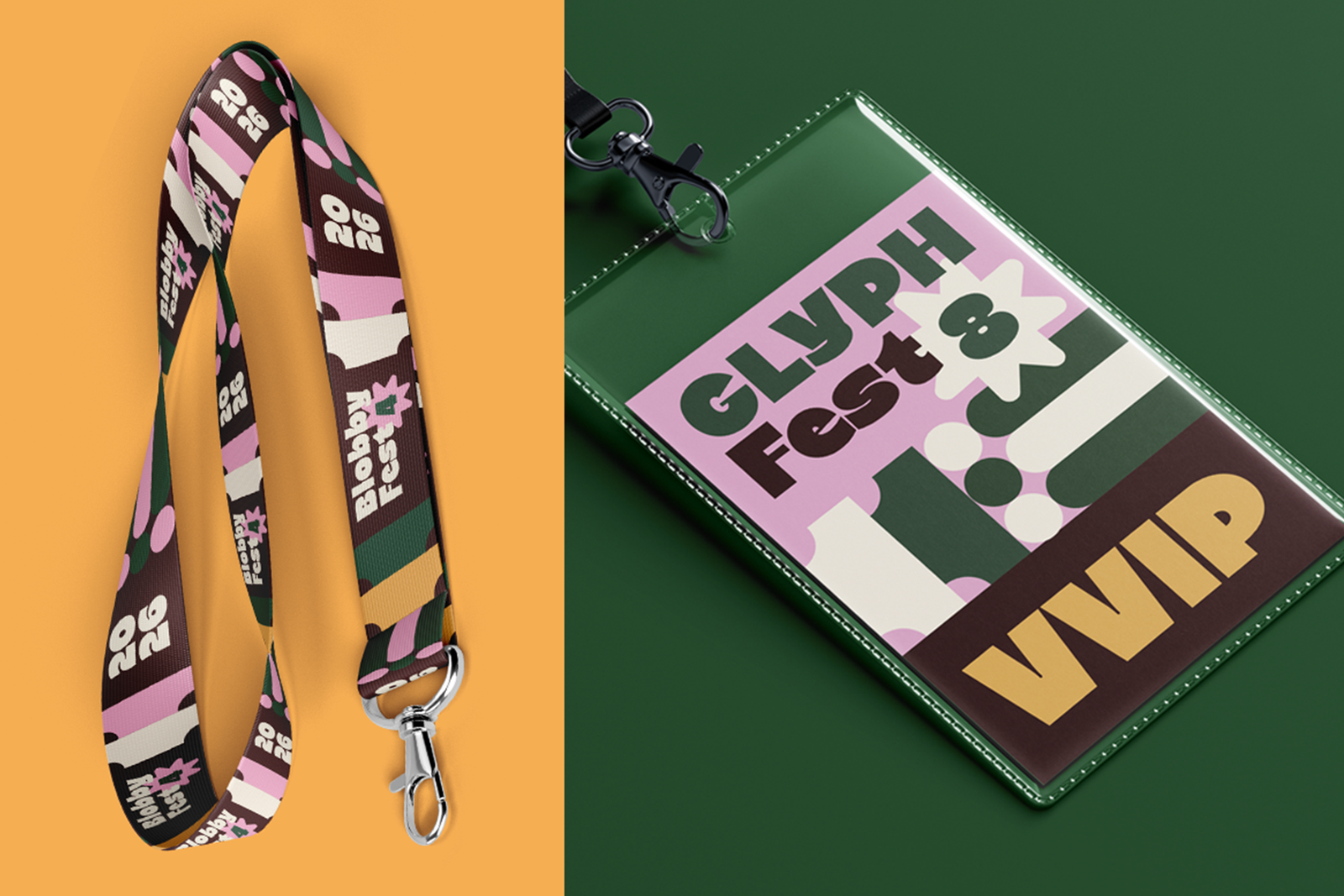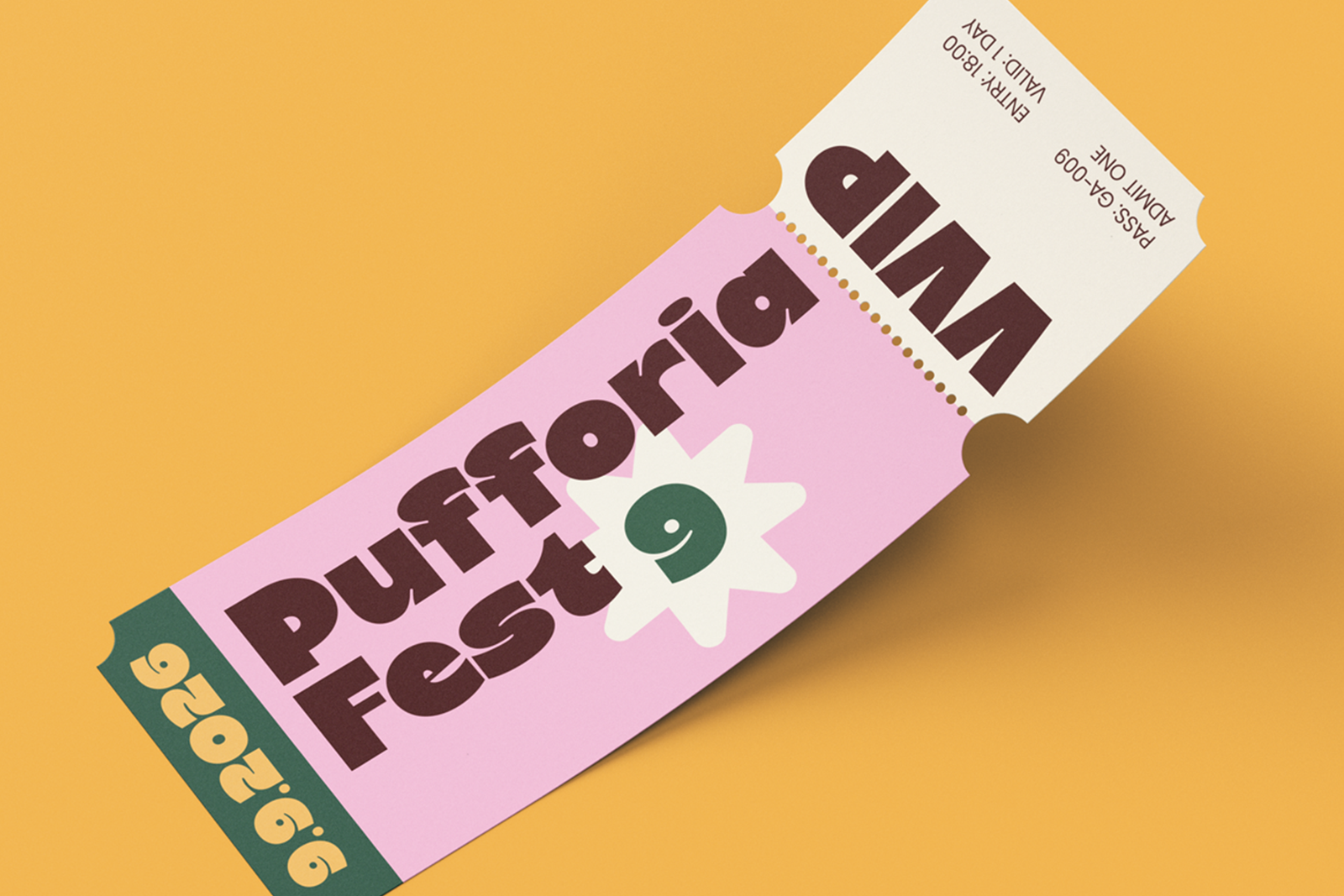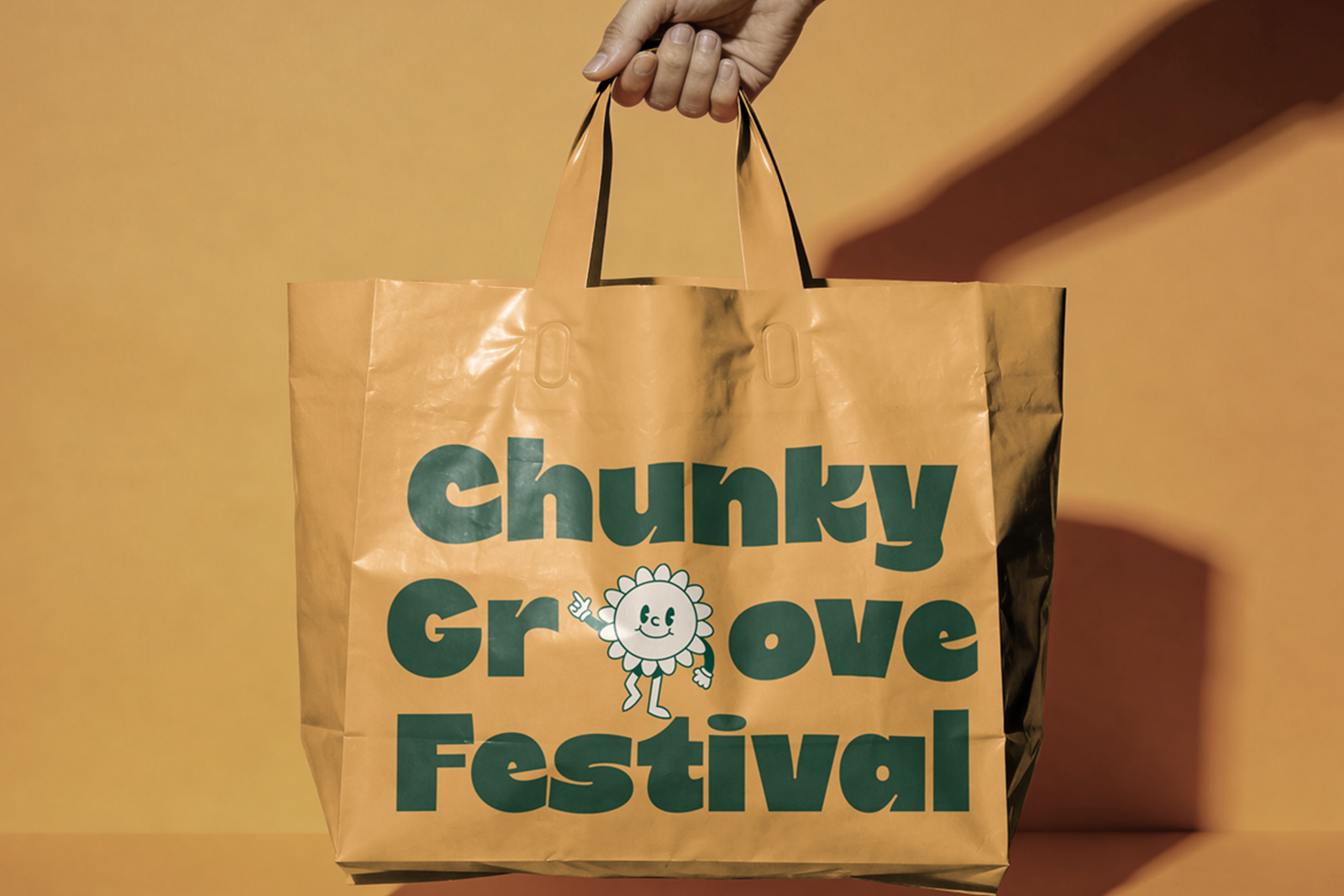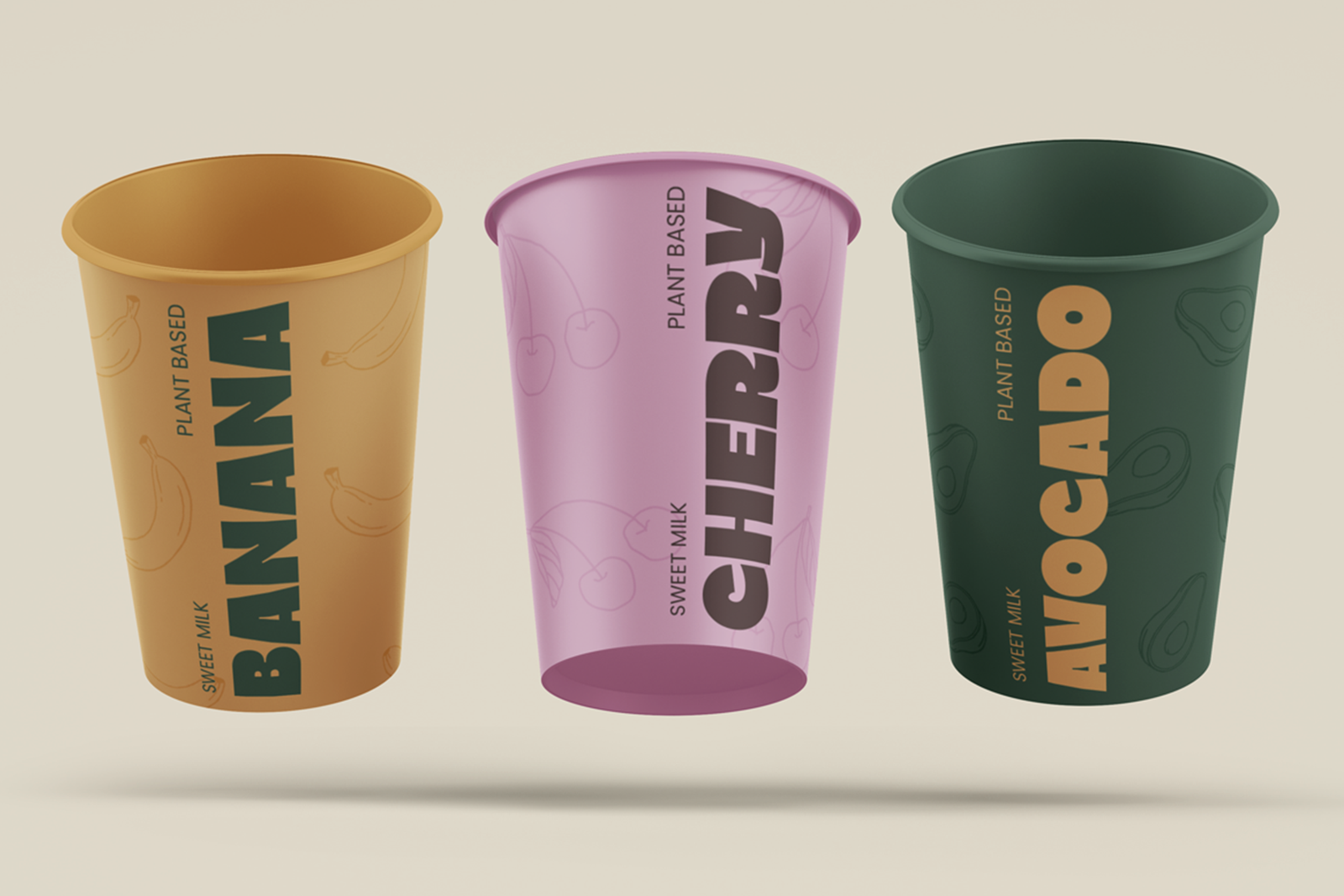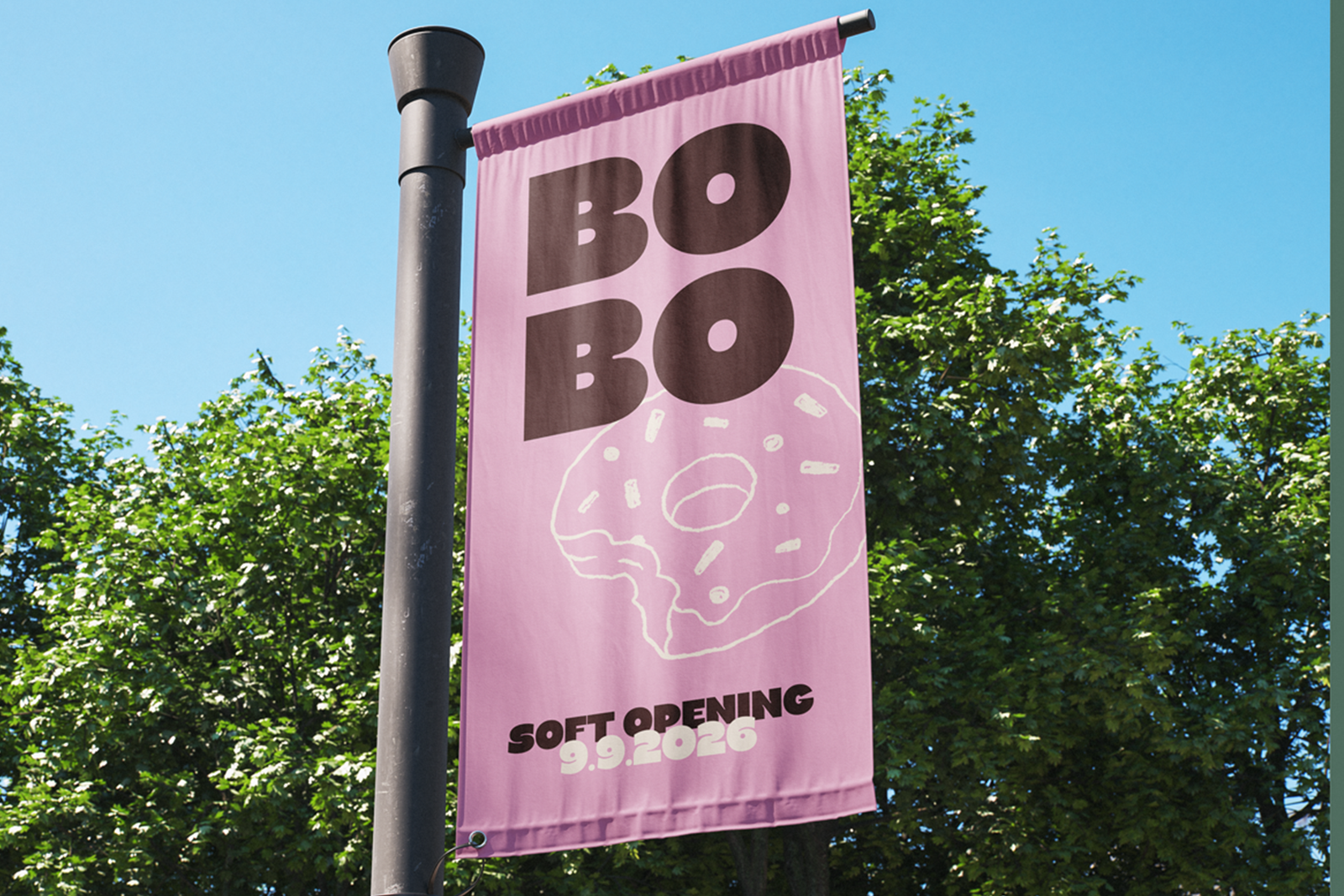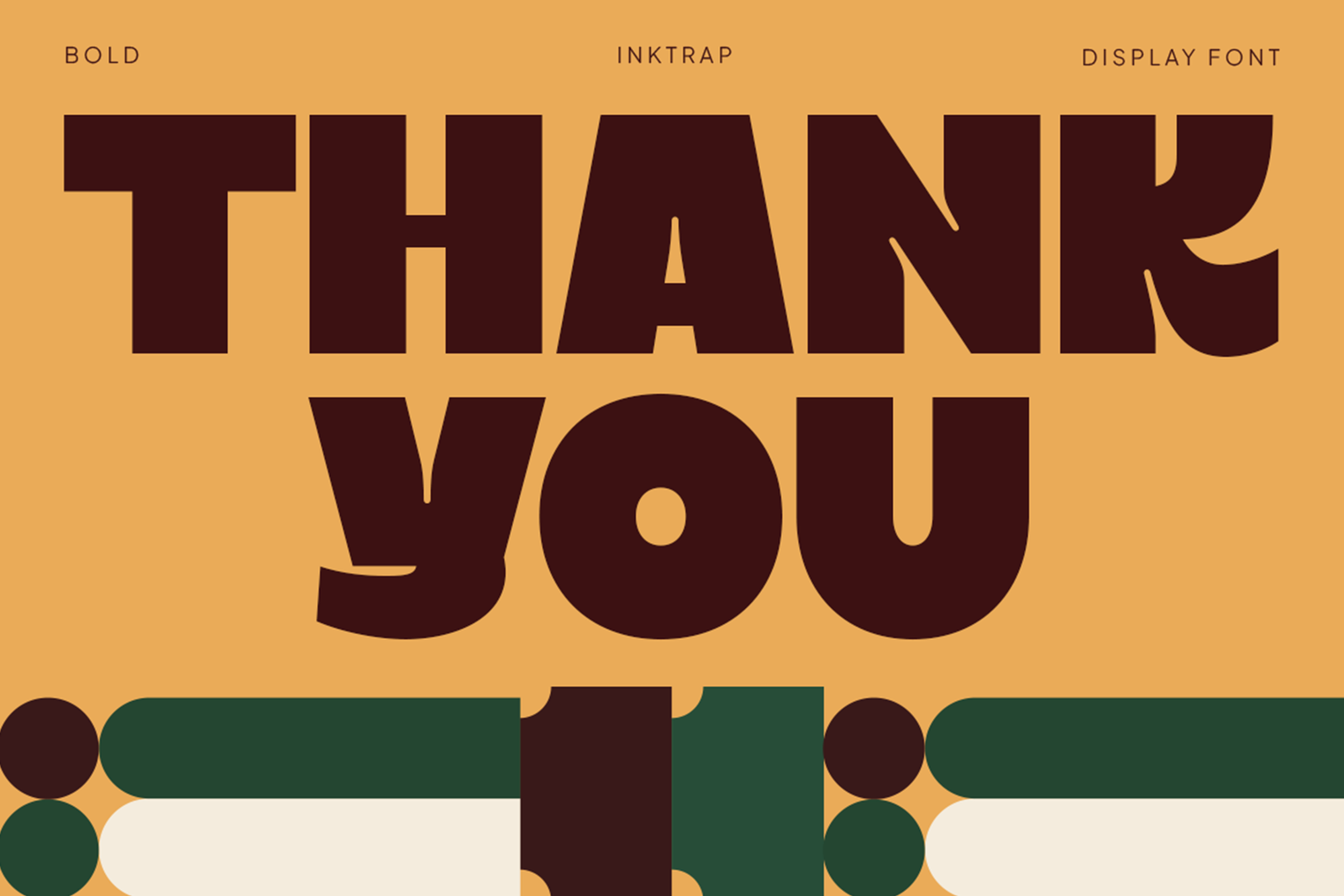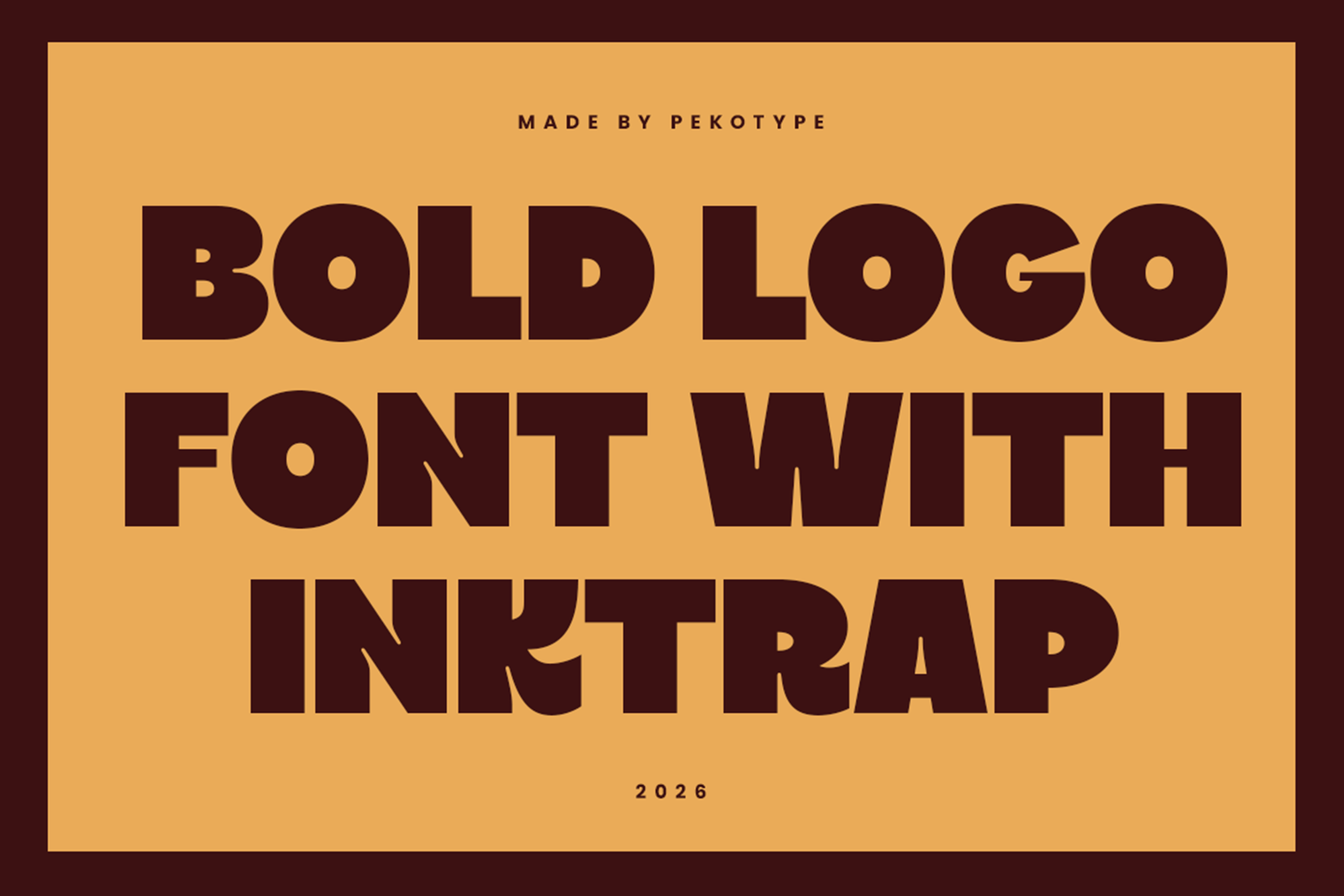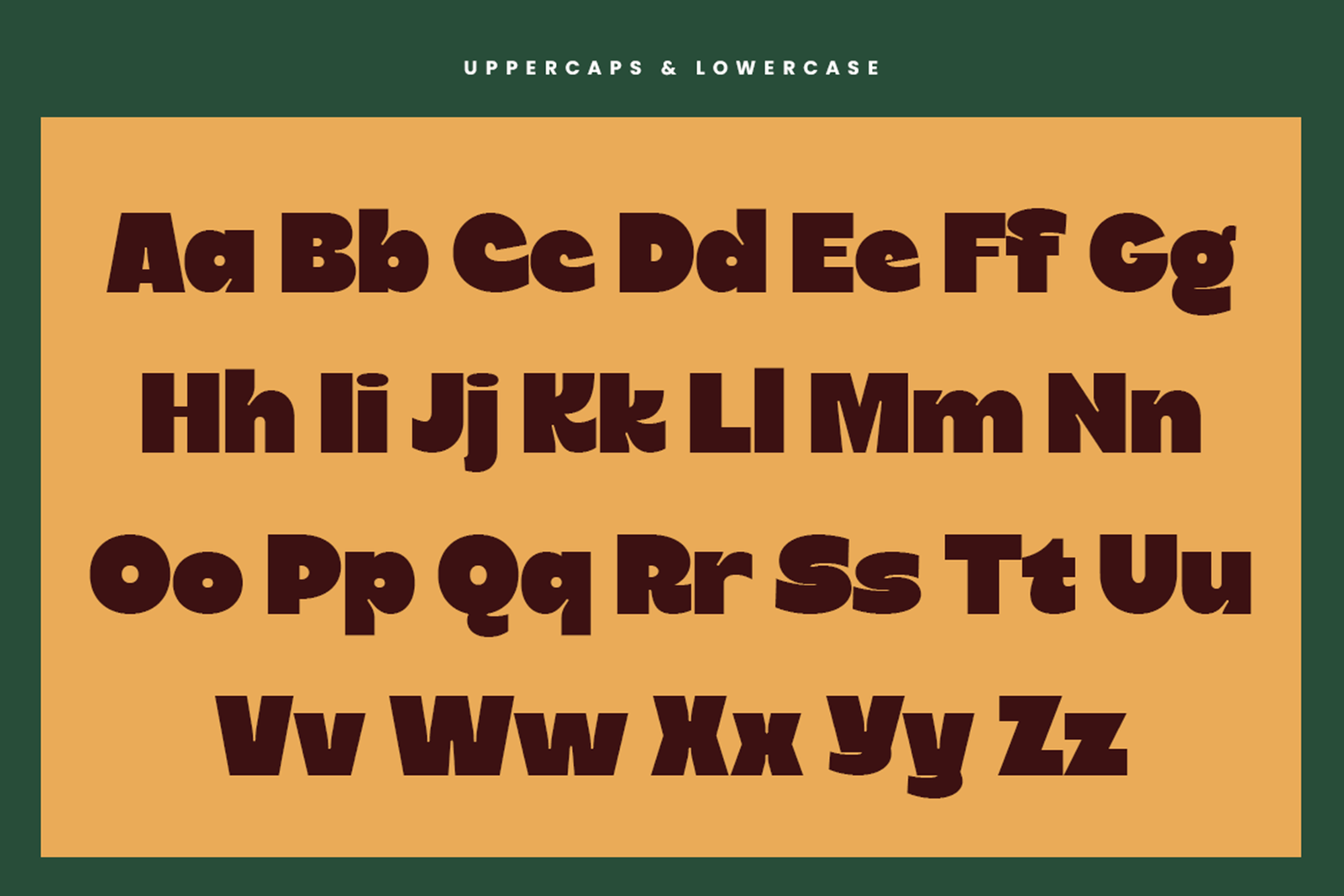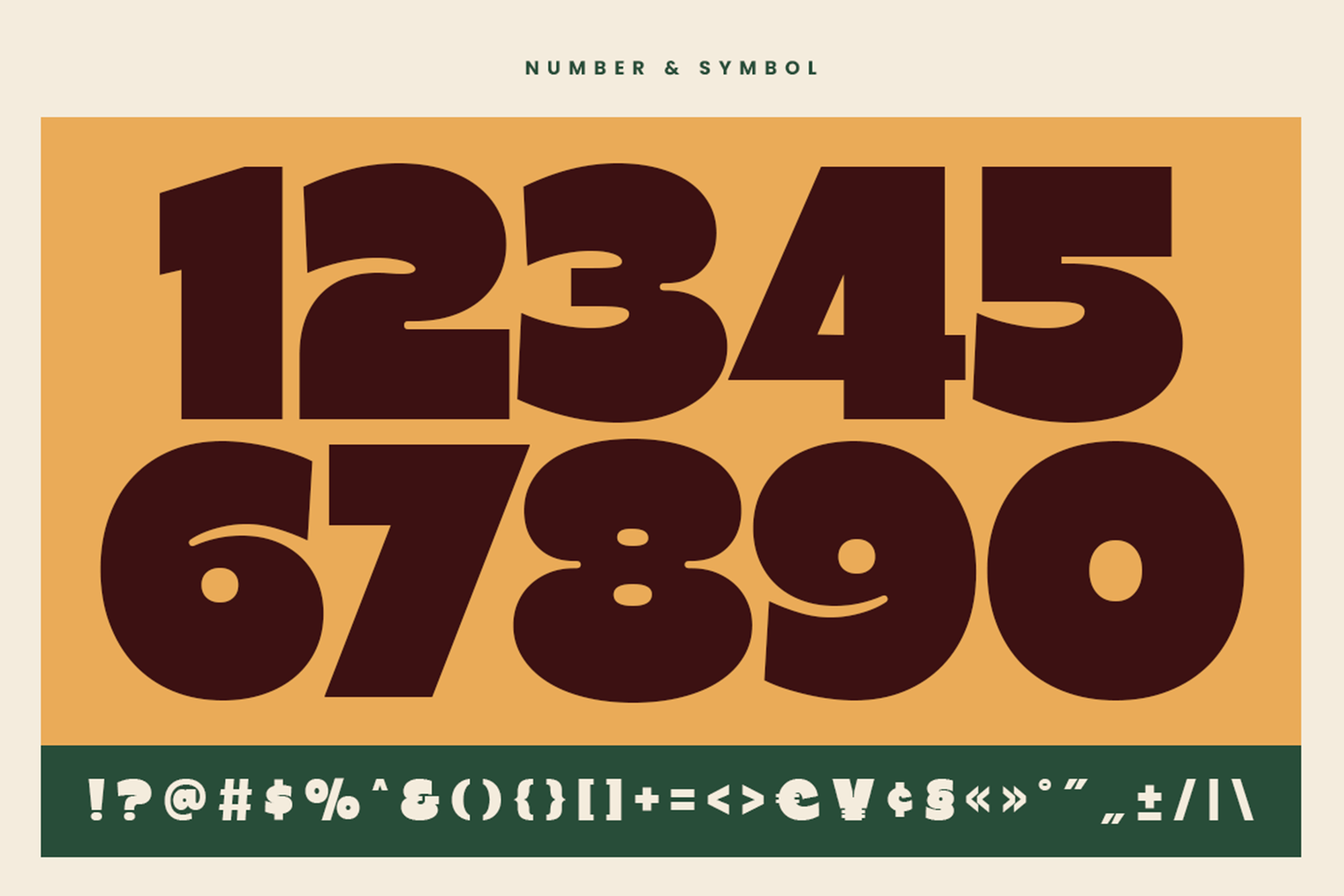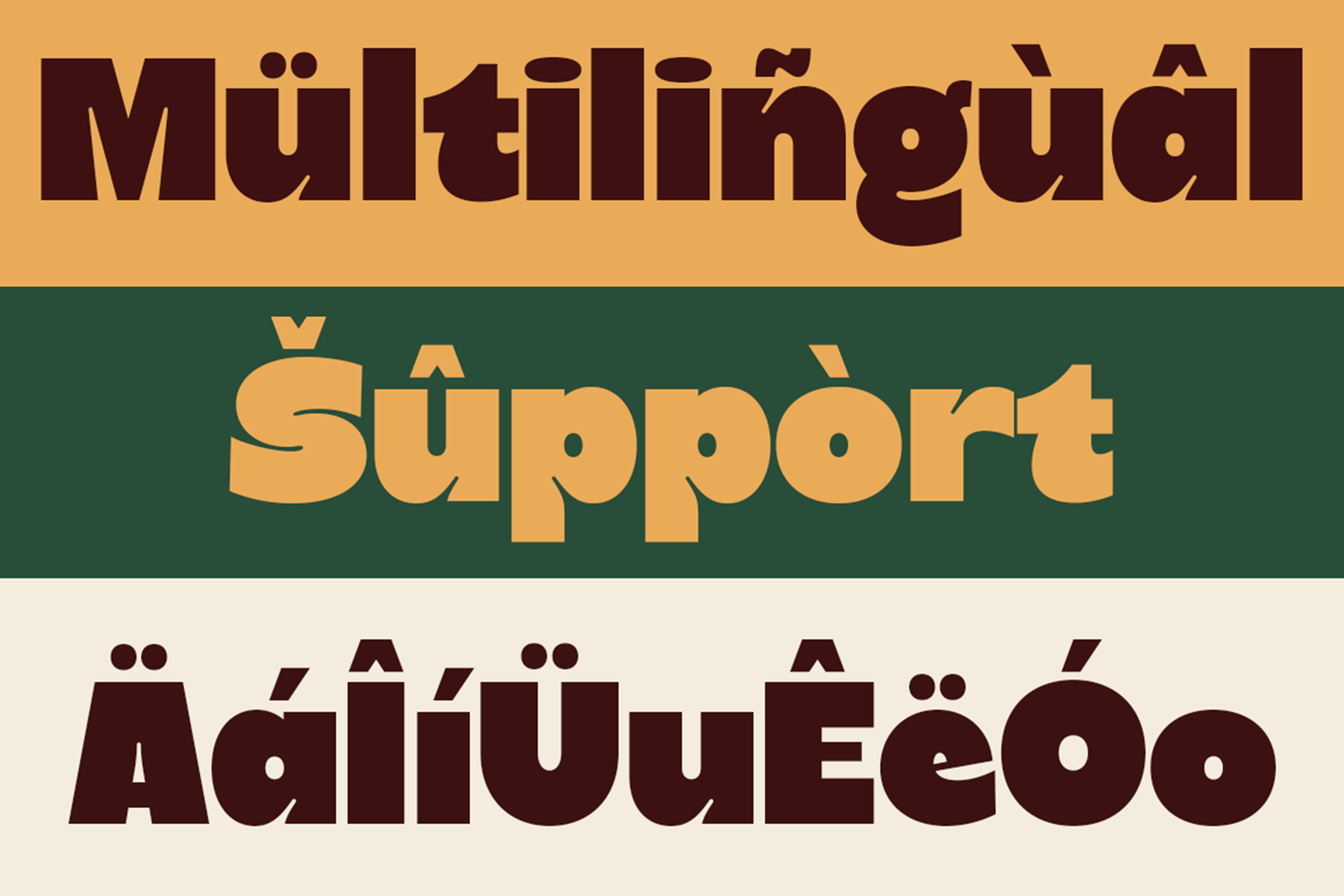
PILKER Font is a bold retro display typeface with chunky shapes and playful ink trap details. Perfect for logos, music posters, café branding, packaging, stickers, and vintage-inspired creative projects.
PILKER Font is a bold retro display typeface designed with chunky shapes, soft ink trap details, and a playful vintage personality. Inspired by classic posters, funky packaging, and pop culture visuals, this font brings a warm and energetic style to modern creative projects.
With its strong letterforms and unique character, PILKER creates a fun visual impact that instantly attracts attention. The playful shapes make it suitable for designs that need a cheerful, nostalgic, and expressive appearance while still maintaining a clean and readable structure.
PILKER works perfectly for logos, music posters, café branding, snack packaging, festival graphics, social media content, banners, stickers, product labels, and creative headline designs. It is also a great choice for retro-inspired brands, lifestyle projects, merchandise, and promotional materials.
The font includes uppercase and lowercase letters, numbers, symbols, punctuation, and multilingual support. Whether used for large headlines, branding elements, packaging designs, or digital content, PILKER adds a bold and memorable personality to every project.
PILKER Font is a perfect choice for designers who need a fun, bold, and expressive typeface for branding, posters, packaging, and creative visual projects.